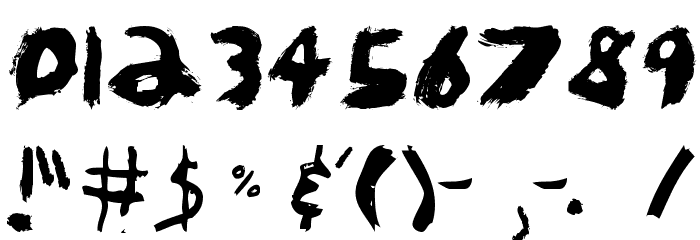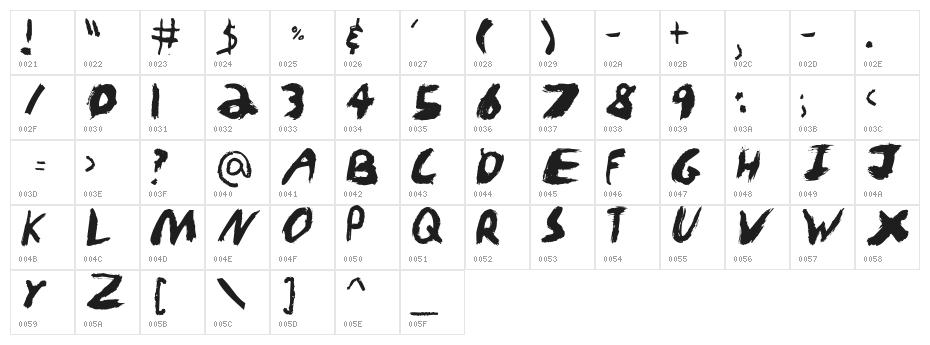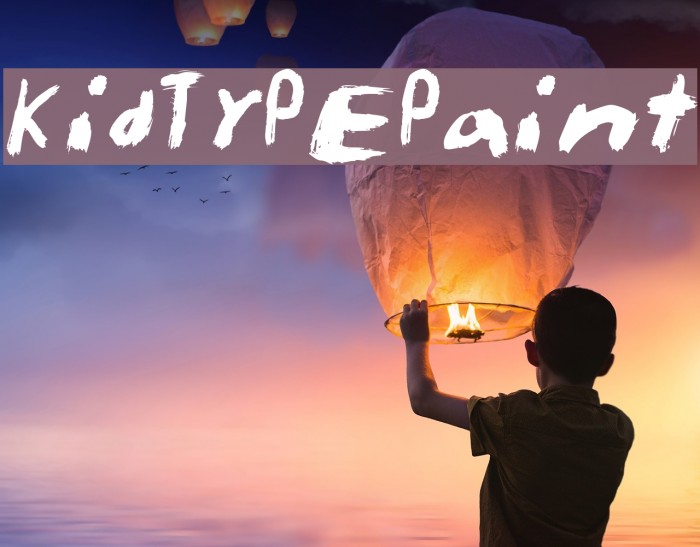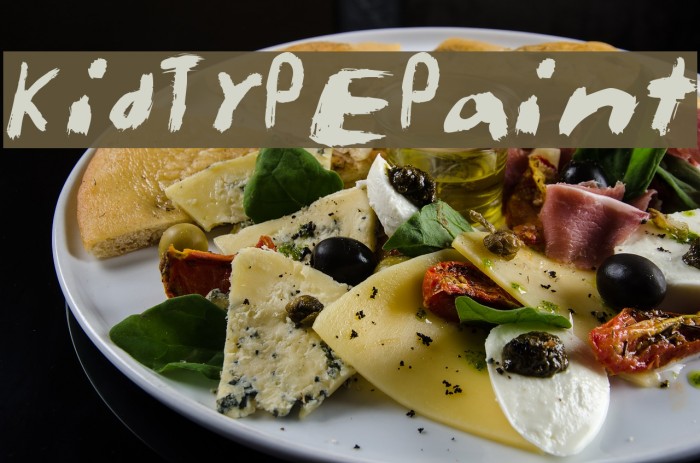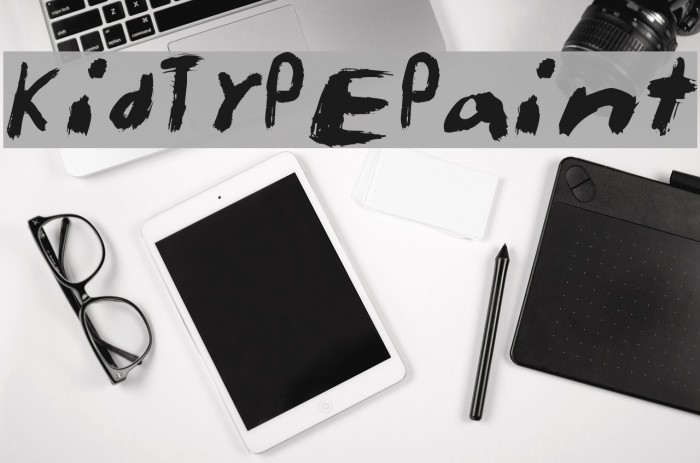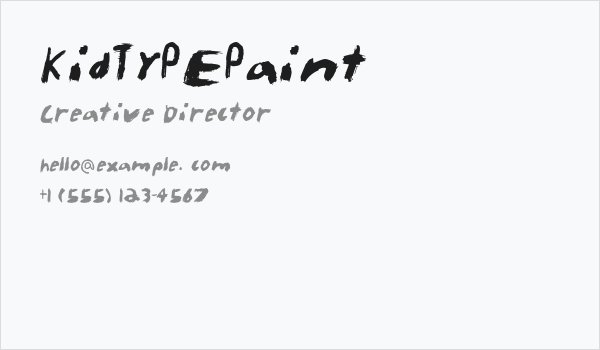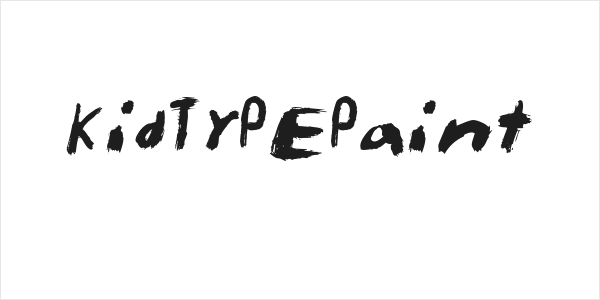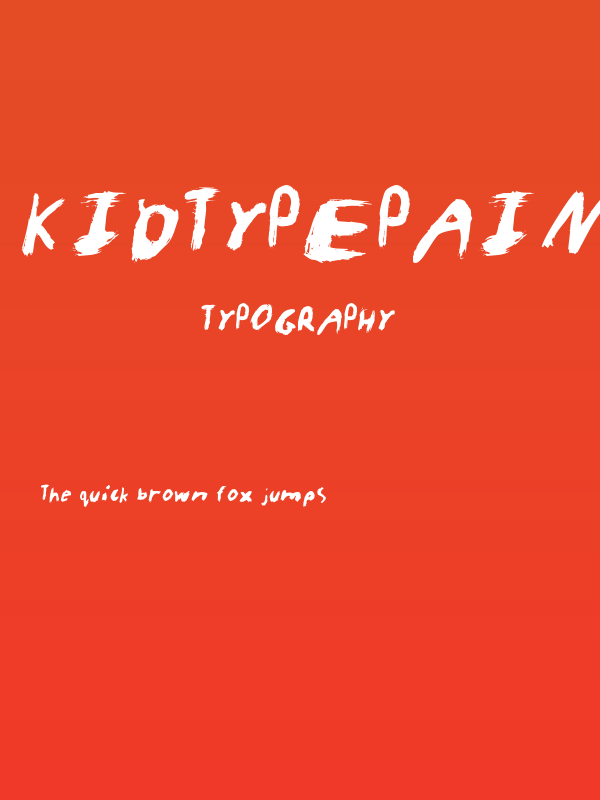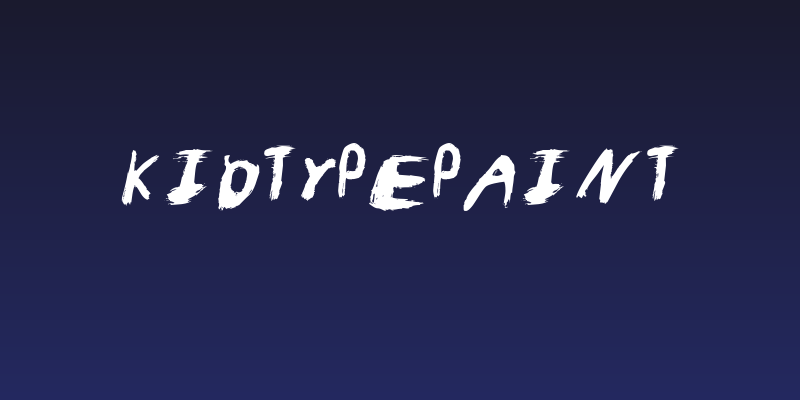
KidTYPEPaint Font
KidTYPEPaint Description
This font exhibits a playful and artistic brushstroke style, reminiscent of hand-painted letters. The characters are bold and dynamic, with uneven edges and varying thickness that give a sense of movement and energy. The uppercase and lowercase letters maintain a consistent style, while the numbers and special characters follow suit with the same expressive flair. The overall appearance is informal and creative, making it ideal for projects that require a touch of whimsy and individuality. The strokes are thick and bold, providing a strong visual impact, while the irregularities in the letterforms add a unique charm.
| Proposed Projects | Ideal for children's book covers, playful posters, artistic branding, and creative social media graphics. |